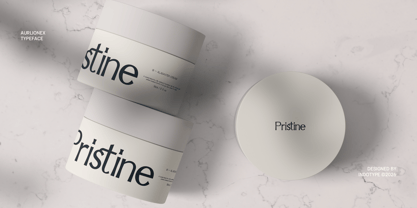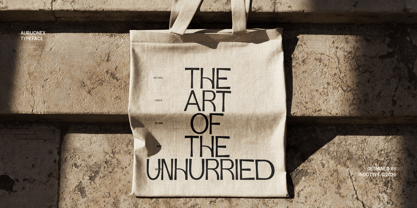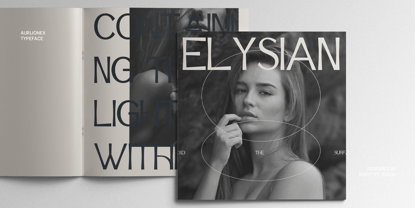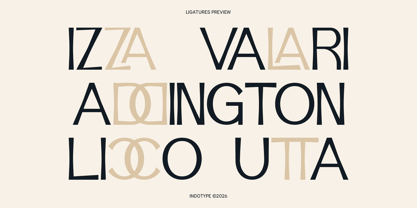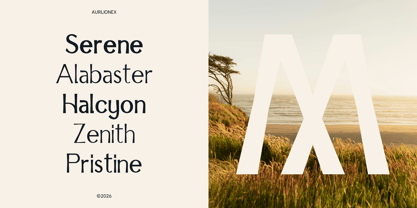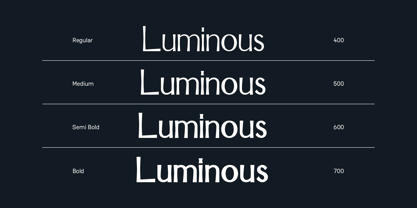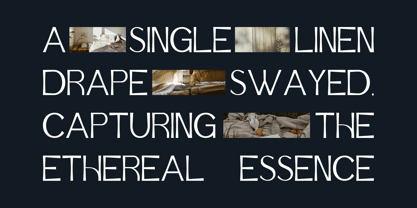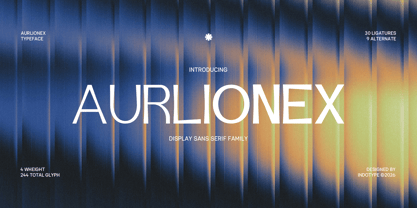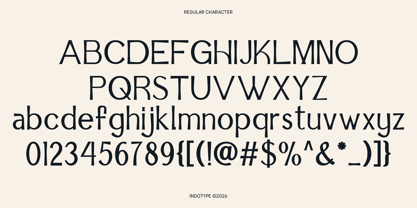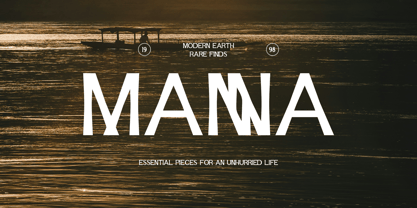
IT Aurlionex
by Indotype
The IT Aurlionex Font Family was designed by Frederik Aristaputra and published by Indotype. IT Aurlionex contains 8 styles and family package options. More about this family
Aurlionex is a sophisticated and highly versatile display sans-serif family designed for creatives who demand both flexibility and personality. With its clean geometric foundations and subtle contemporary details, this typeface strikes the perfect balance between modern clarity and expressive character. Whether used for bold headlines or refined branding, Aurlionex delivers impact with elegance. This comprehensive family offers exceptional creative control with 4 weights ranging from light to extra bold, ensuring tonal versatility across any project. With a rich set of 244 total glyphs, including 30 stylish ligatures and 9 alternate characters, Aurlionex empowers designers to craft unique, custom typographic compositions that stand out. It's not just a font family—it's a complete toolkit for distinctive display typography. • Ideal for: Brand Identity Systems, Editorial Headlines, Packaging Design, Advertising Campaigns, Logo Design, Digital Platforms. • Classification: Sans-Serif, Display, Geometric, Family. • Attributes: Versatile, Modern, Clean, Expressive, Customizable, Professional, Distinctive.
Designers: Frederik Aristaputra
Foundry: Indotype